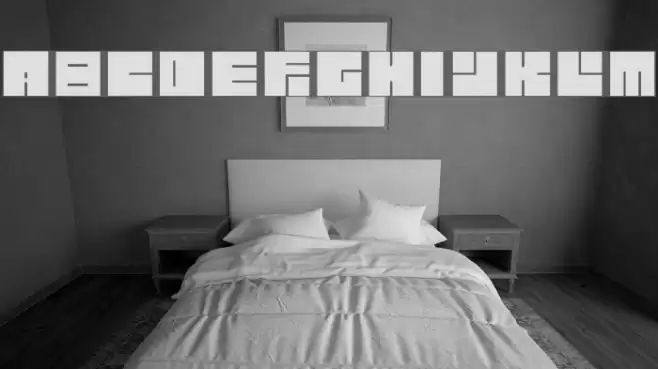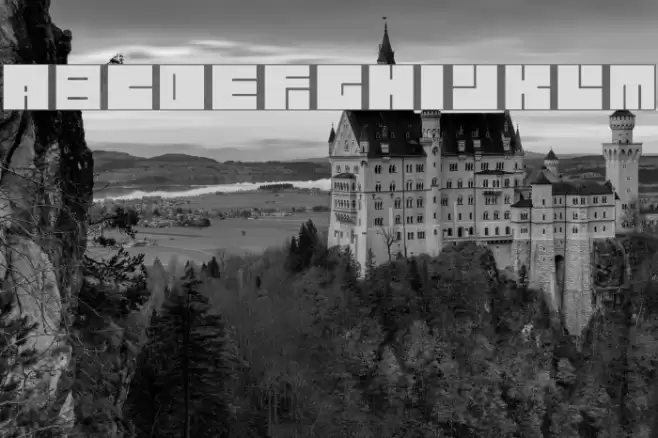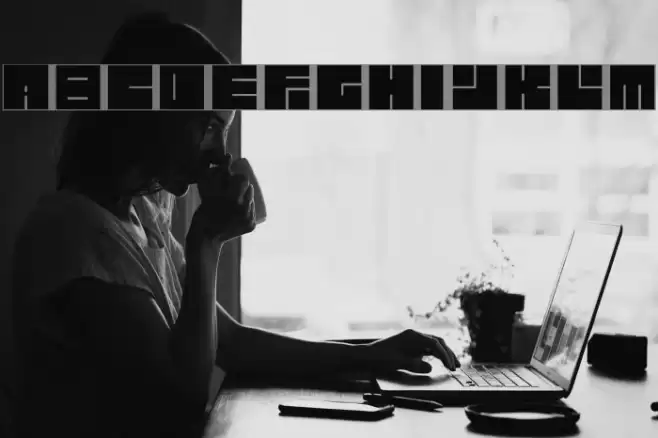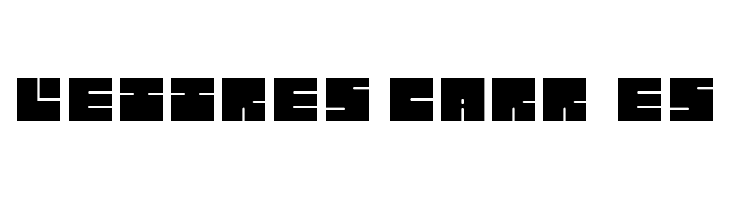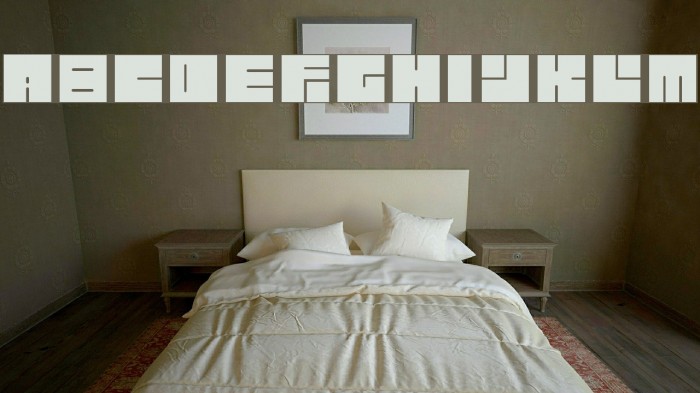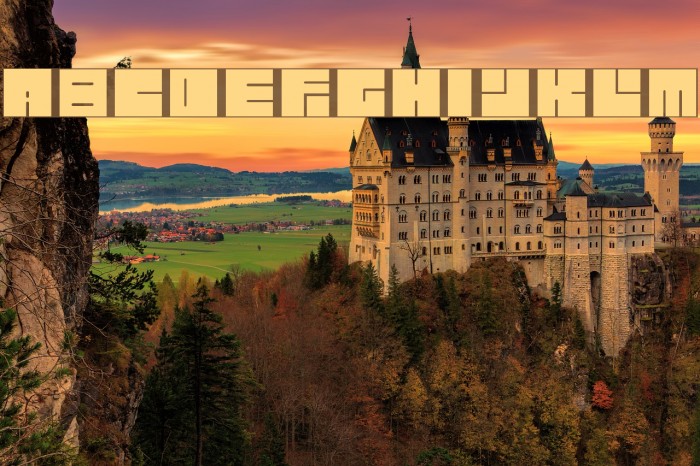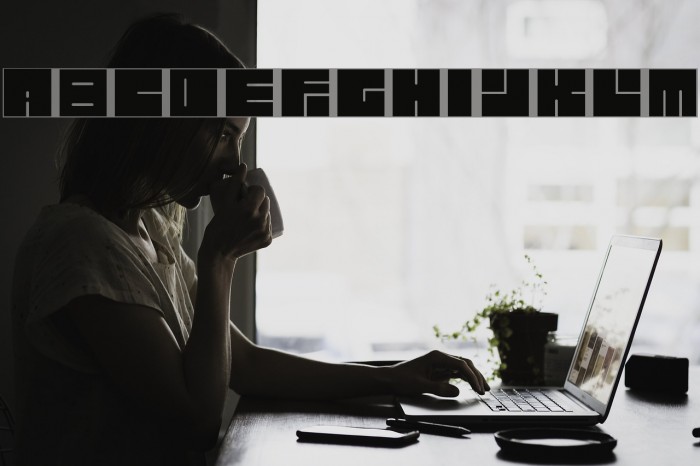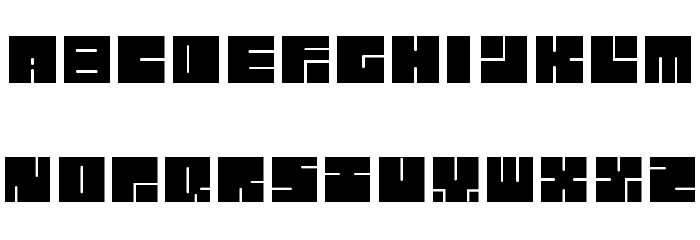
lettres carrées Font
lettres carrées Description
This font features a bold, geometric design with a strong emphasis on square and rectangular shapes. The uppercase letters are characterized by their blocky, solid forms, creating a sense of stability and strength. The lowercase letters maintain the same geometric style, offering a cohesive look throughout the typeface. The numbers are designed with a classic serif style, providing a contrasting elegance to the otherwise robust uppercase and lowercase letters. Special characters are included, maintaining the serif style of the numbers. This combination of styles makes the font versatile for various design needs.
A bold, geometric font with contrasting serif numbers from Uncategorized fonts.
- Proposed Projects: Ideal for modern branding, poster designs, and digital media where a strong visual impact is needed.